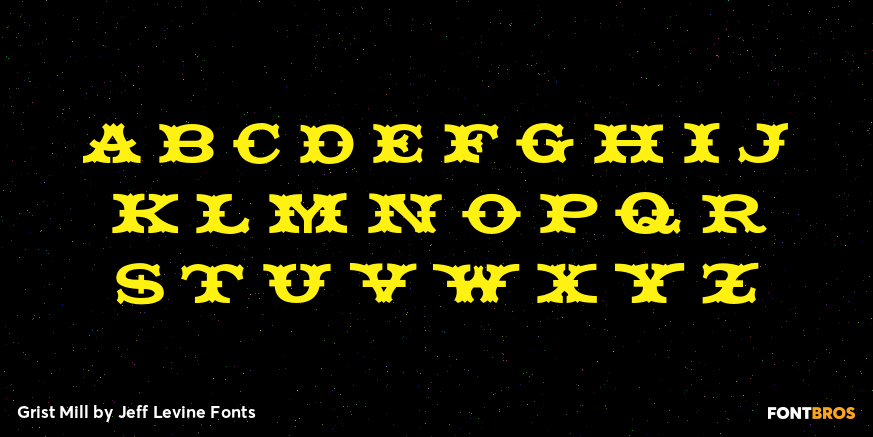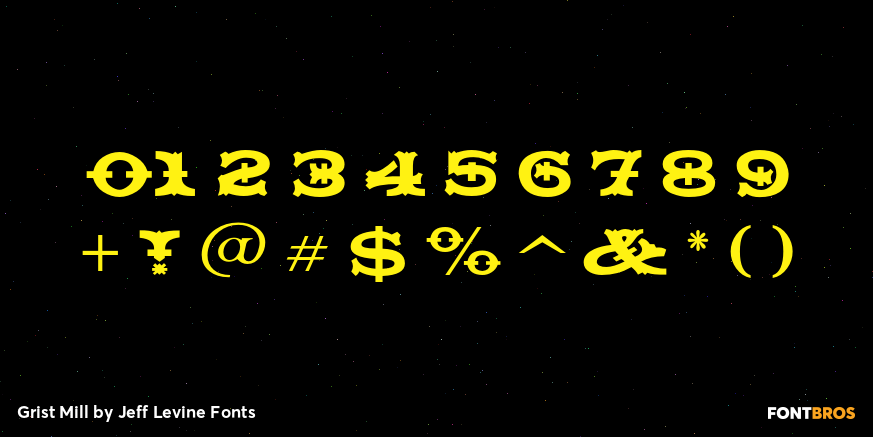
Grist Mill
Grist Mill JNL was modeled from an old wood type design and has all of the wonderful quirks that made wood type so appealing for many projects. There is minimal kerning because of the unique letter shapes, so you may wish to adjust your layout to fit your needs.